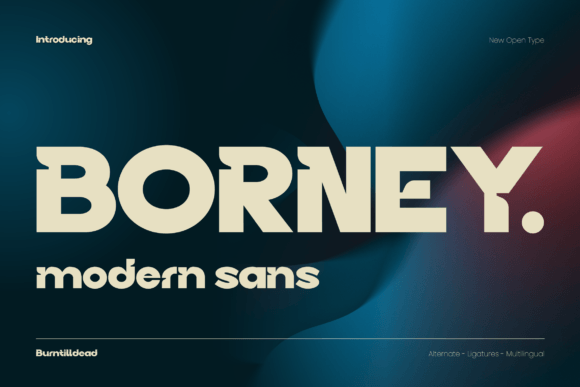
Discover the Power of Minimalism with Borney Font
You know that moment when you’re brainstorming ideas for a new project and suddenly, a spark of inspiration hits you? That’s exactly what happened when designers first laid eyes on the Borney Font. Its clean lines, simplicity, and modern aesthetic immediately captured their attention, making it the perfect choice for a wide range of design projects.
As a modern sans serif font, Borney Font is designed to convey a sense of professionalism and forward-thinking style. With its bold and minimalistic appearance, it’s no wonder why designers are flocking to this versatile font for everything from corporate branding to web interfaces and product labels.
Borney Font Key Features
- Unique Characteristics: Borney Font features a unique blend of modern and classic elements, with intricate details and a wide range of glyph variations.
- Language Support: The font supports a wide range of languages, including Latin, Cyrillic, and Greek scripts.
- Font Weight and Style: Borney Font is available in multiple weights, from light to bold, and various styles, including regular, italic, and bold italic.
- Scalability: The font is designed to be highly scalable, making it suitable for use in various contexts, from small text to large headings.
Borney Font Review
Overall, I think Borney Font is a solid addition to any designer’s toolkit. ✨ The font’s clean lines and minimalist aesthetic make it perfect for modern designs, especially those that require a touch of sophistication.
- Great for:
- Clean and modern designs
- Business and corporate branding
- Print materials like brochures and flyers
One of the things I appreciate about Borney Font is its versatility. It comes in a variety of weights, from light to bold, which makes it easy to customize and adjust to different design needs. ✨ The font also has a high x-height, making it easy to read even in smaller sizes.
However, there are some limitations to consider: ⚠️ The font may not be the best choice for designs that require a lot of flair or personality, as it can come across as a bit too straightforward. Additionally, some users may find the font to be too similar to other popular fonts on the market.
Overall, I would give Borney Font 4 out of 5 stars. While it may not be the most exciting font out there, it’s a reliable choice for designers who want a clean and professional look.
Borney Font: A Practical Application Guide
The Borney Font is a versatile font that can be used for a variety of purposes, including:
Headings and titles
Body text
Logos and branding
Marketing materials
Tips for Getting the Most Out of Borney Font
To get the most out of Borney Font, consider the following tips:
Use it consistently throughout your project to create a cohesive look and feel.
Pair Borney Font with other fonts to create a unique and eye-catching design.
Alternatives to Borney Font
Montserrat is a sans-serif font designed for digital use. It’s great for headings and titles due to its clean and modern look. Montserrat is more versatile than Borney Font and works well in a variety of contexts, from digital interfaces to print materials.
Comparison to Borney Font: Montserrat has a more geometric feel and is designed for digital use, whereas Borney Font has a more traditional and elegant look.
Lato is a sans-serif font with a friendly and approachable feel. It’s suitable for body text and is highly readable in small sizes. Lato is more versatile than Borney Font and works well in a variety of contexts, from digital interfaces to print materials.
Comparison to Borney Font: Lato has a more relaxed and casual feel, whereas Borney Font has a more formal and elegant look.
Open Sans is a sans-serif font designed for digital use. It’s highly legible and works well in a variety of contexts, from digital interfaces to print materials. Open Sans is more versatile than Borney Font and has a more modern feel.